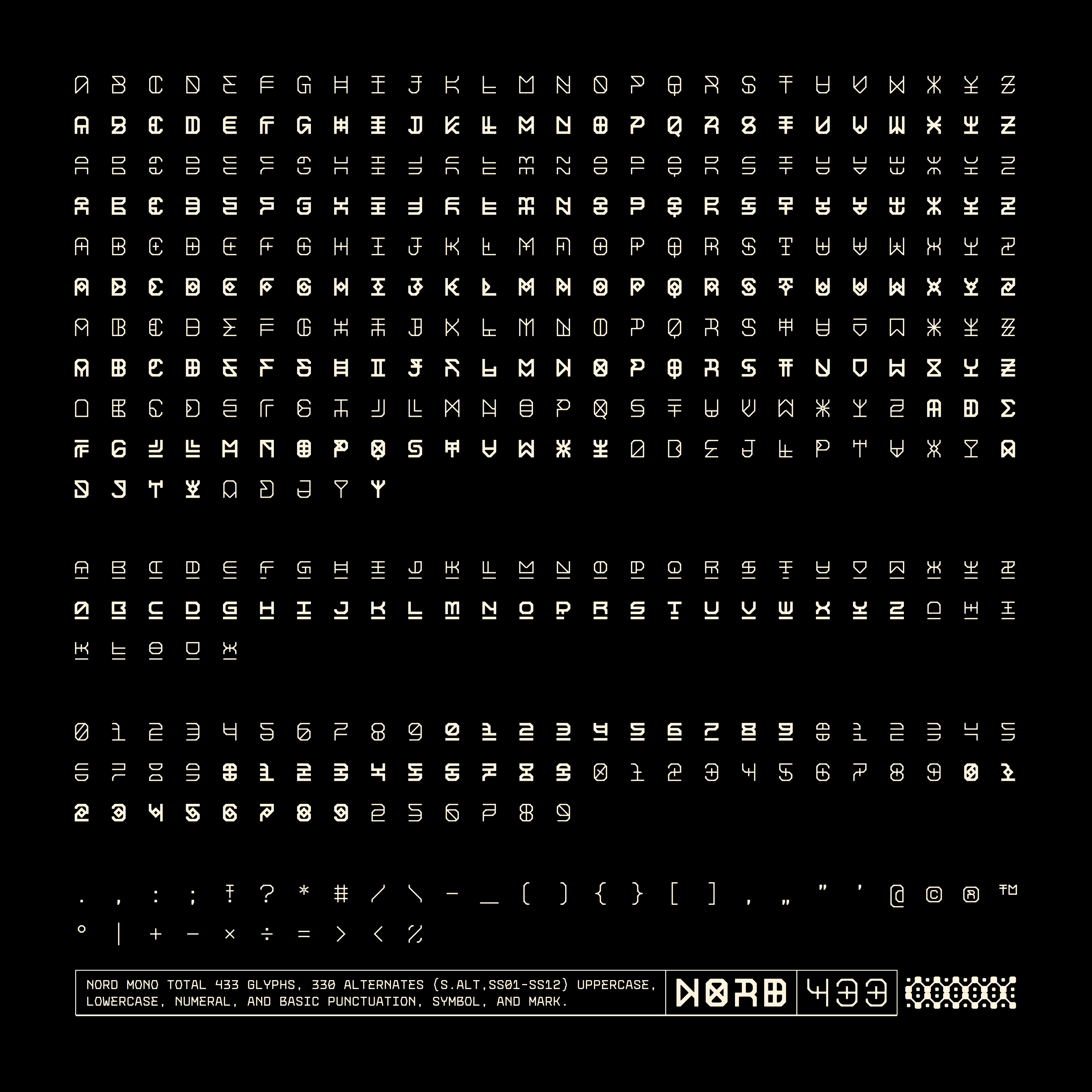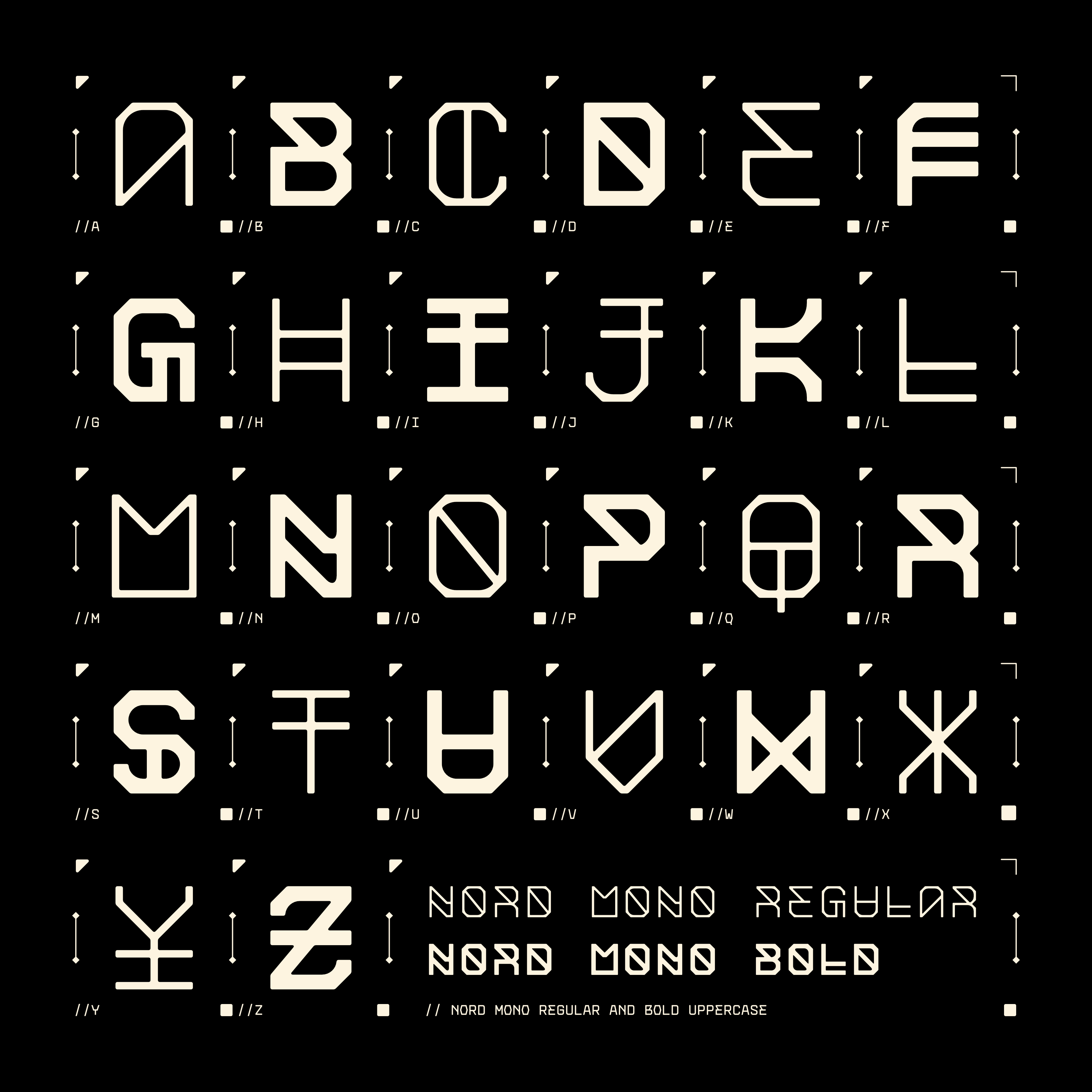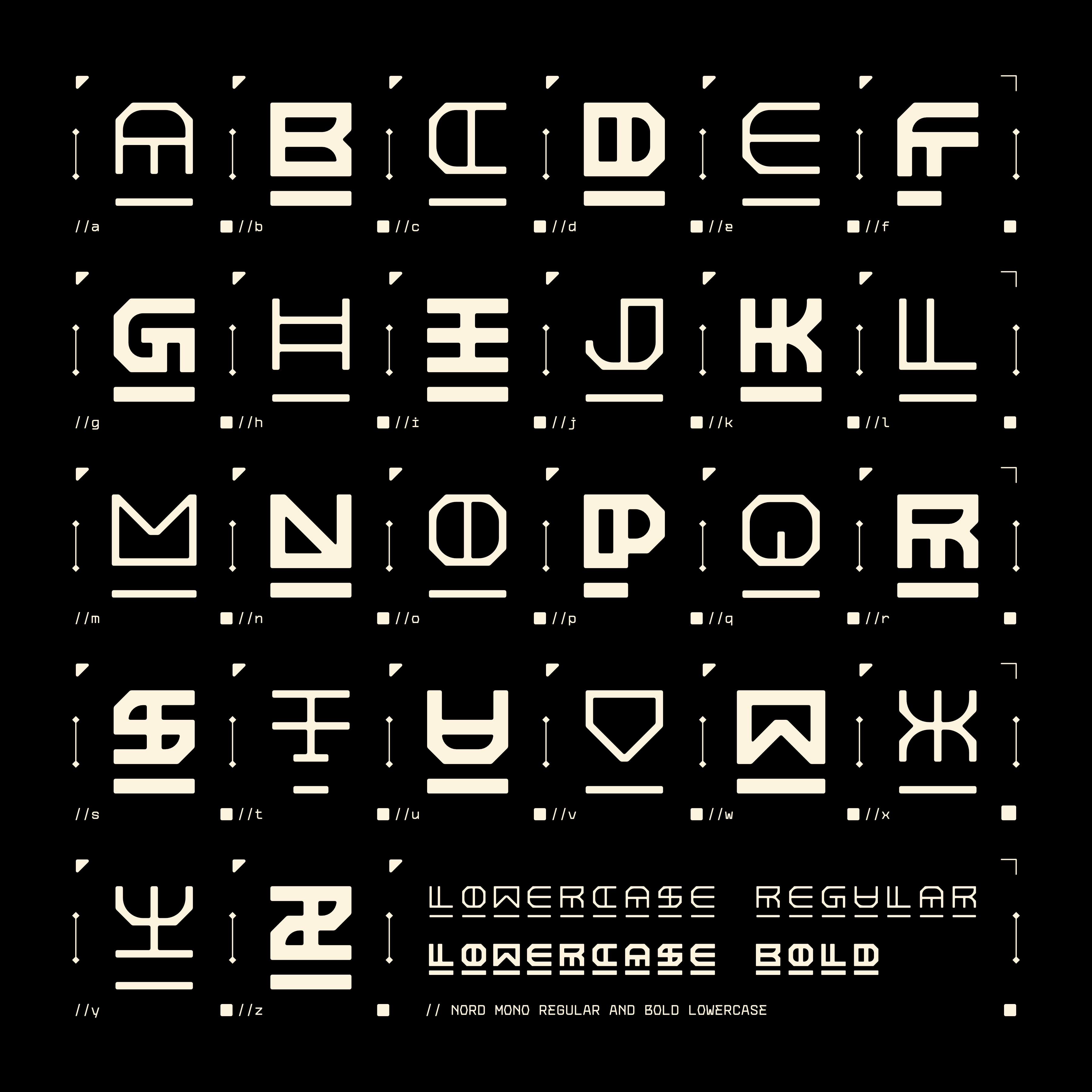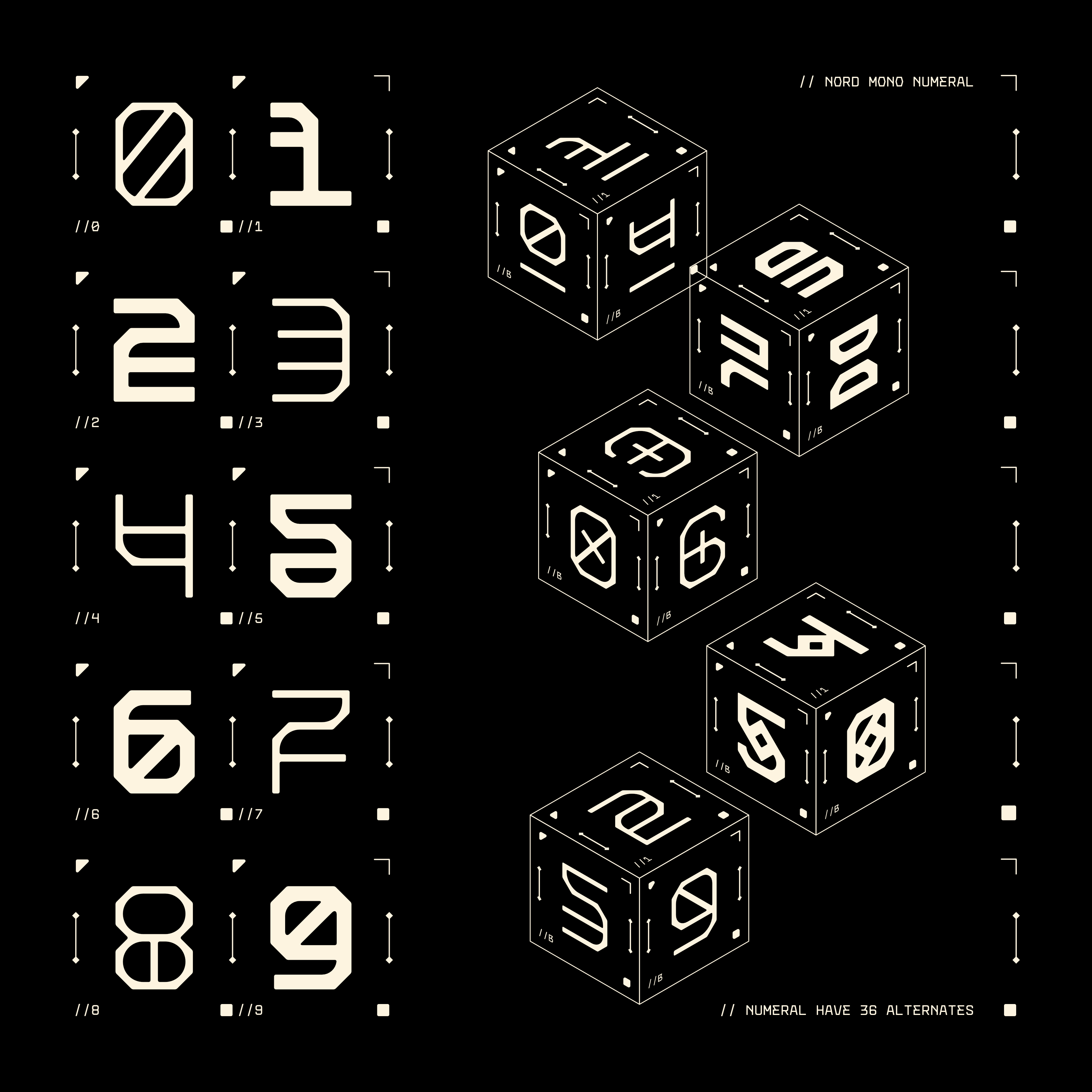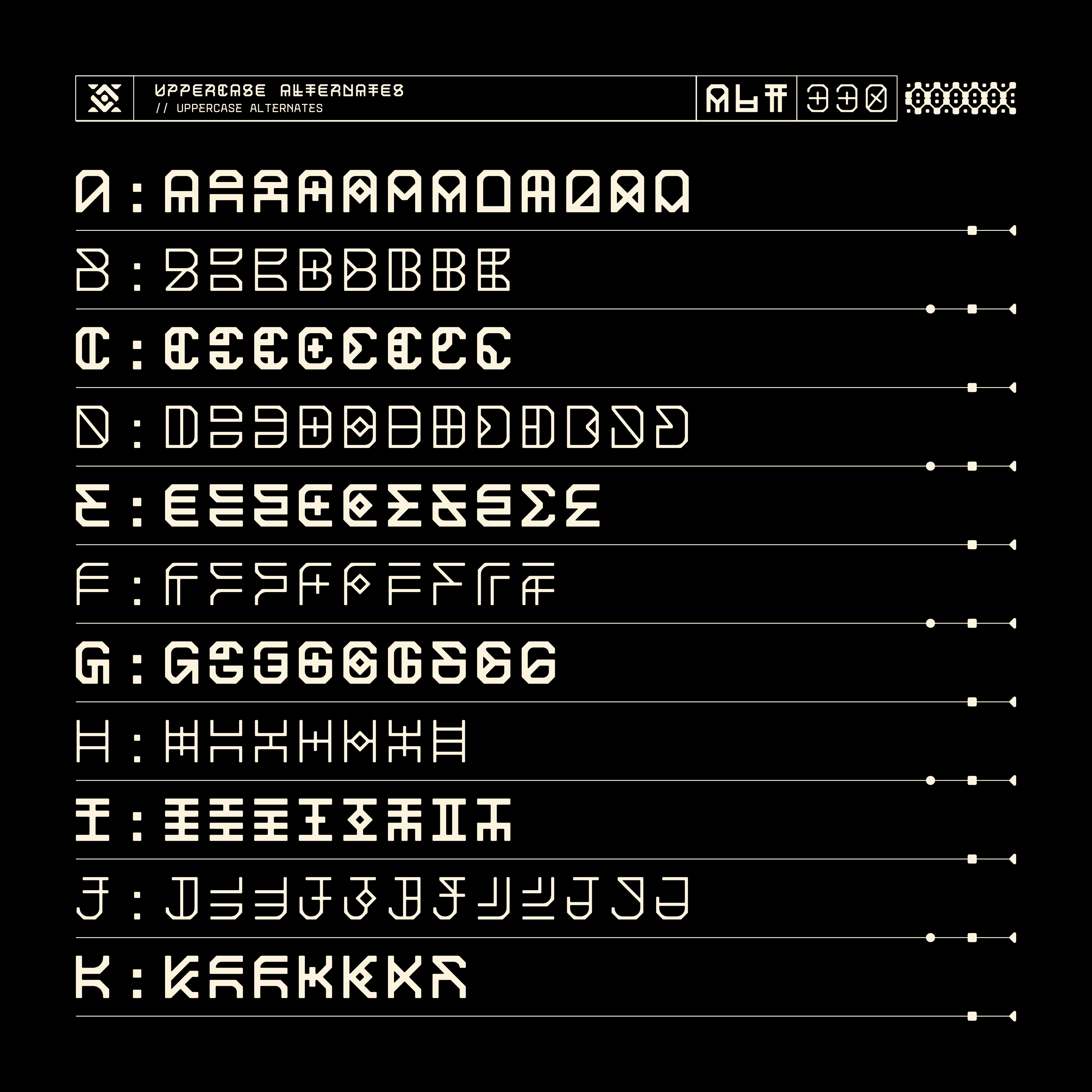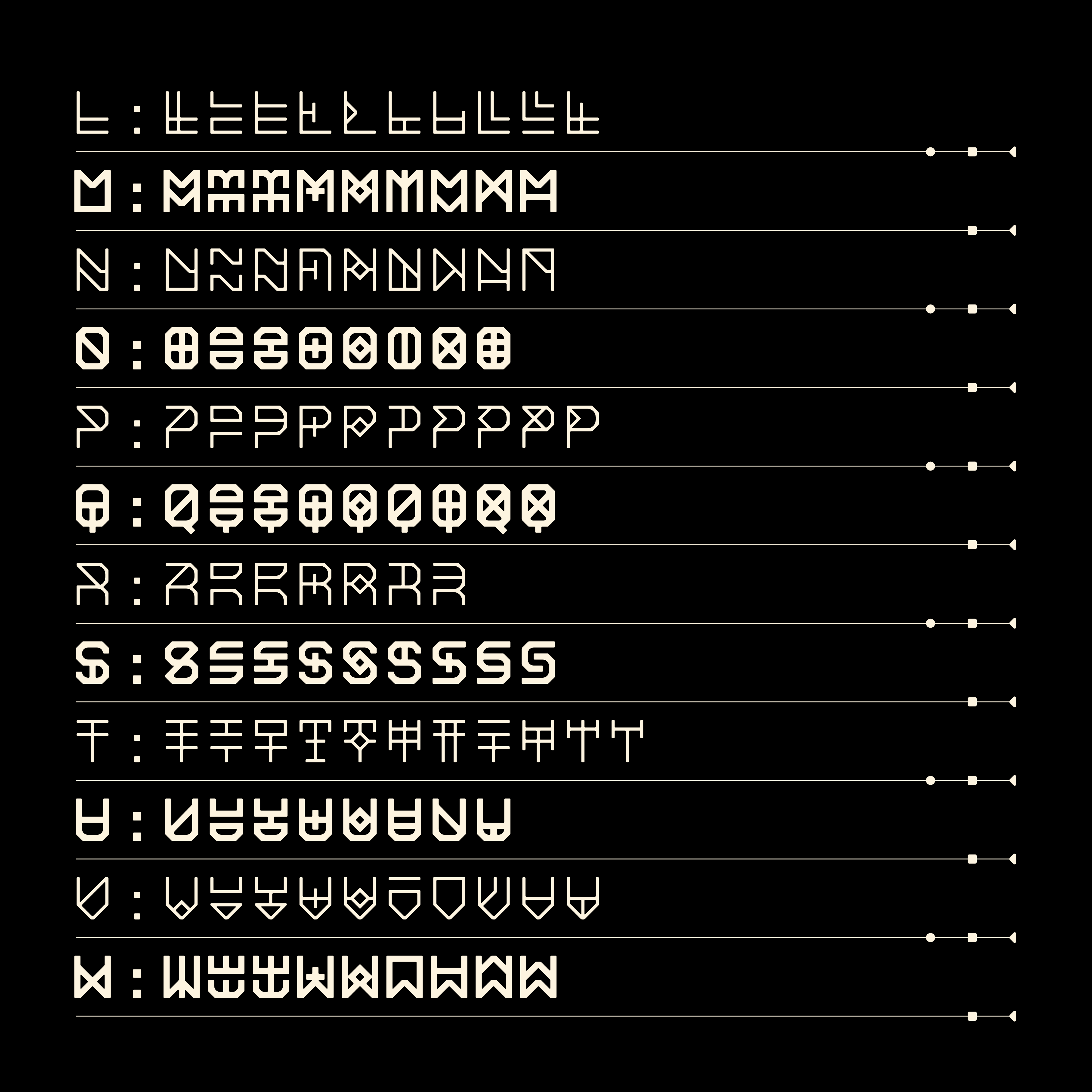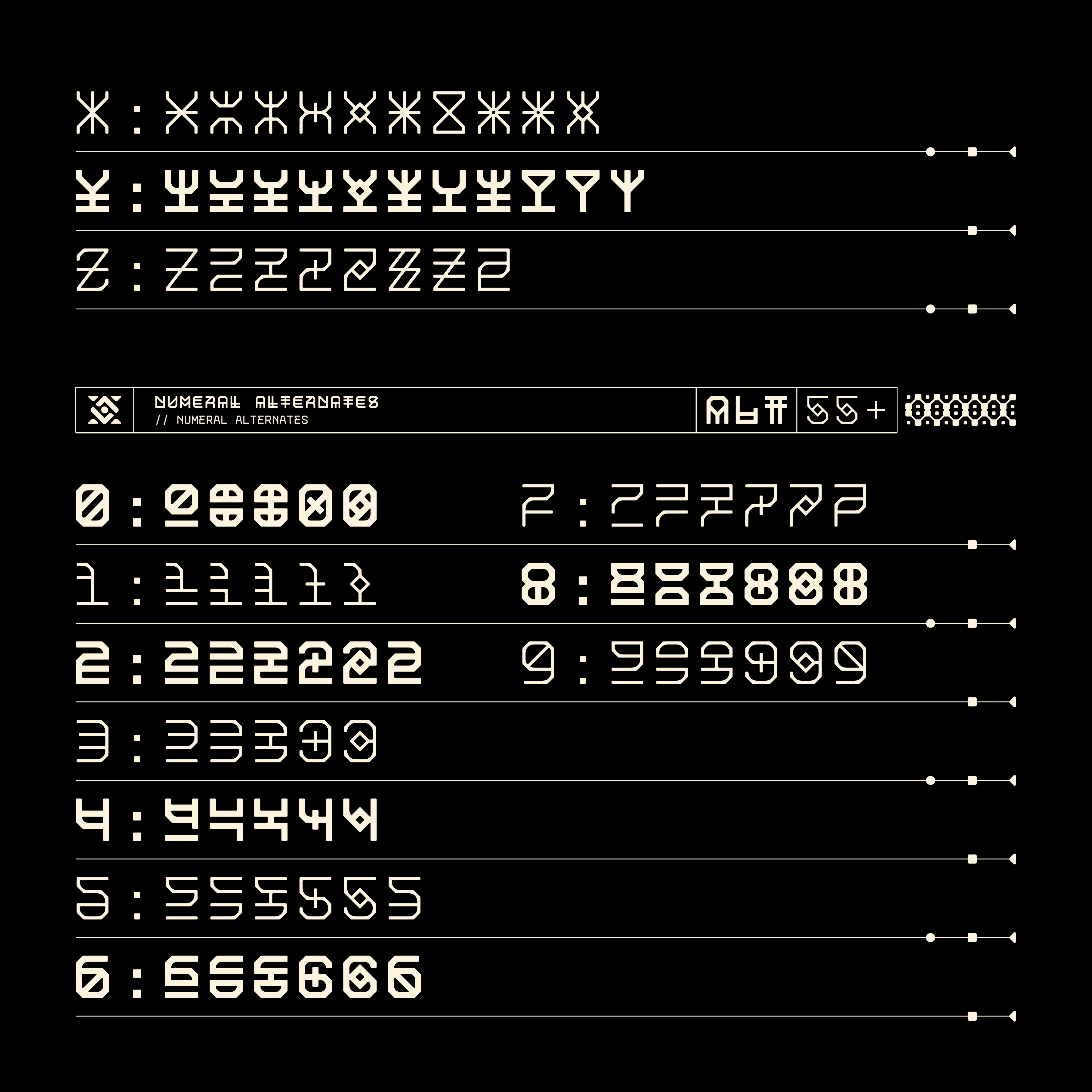
NORD MONO TYPEFACE
A FONT INSPIRED BY NORDIC LETTERING, WITH A UNIQUE, AESTHETIC, AND ETHNIC FEEL. IT OFFERS A WIDE SELECTION OF LETTERFORMS, WITH A TOTAL OF 433 GLYPHS AND 330 ALTERNATE STYLES. IT'S PERFECT FOR ETHNIC, AESTHETIC, UNIQUE, AND DECORATIVE PURPOSES.
- 2 STYLES: REGULAR AND BOLD
- 433 TOTAL GLYPHS
- 330 ALTERNATES (S.ALT, SS01-SS12)
- 26 UPPERCASE ALTERNATES
- 243 UPPERCASE ALTERNATES
- 26 LOWERCASE ALTERNATES
- 31 LOWERCASE ALTERNATES
- 10 NUMERALS
- 56 NUMERAL ALTERNATES
- BASIC PUNCTUATION, MARK, AND SYMBOL